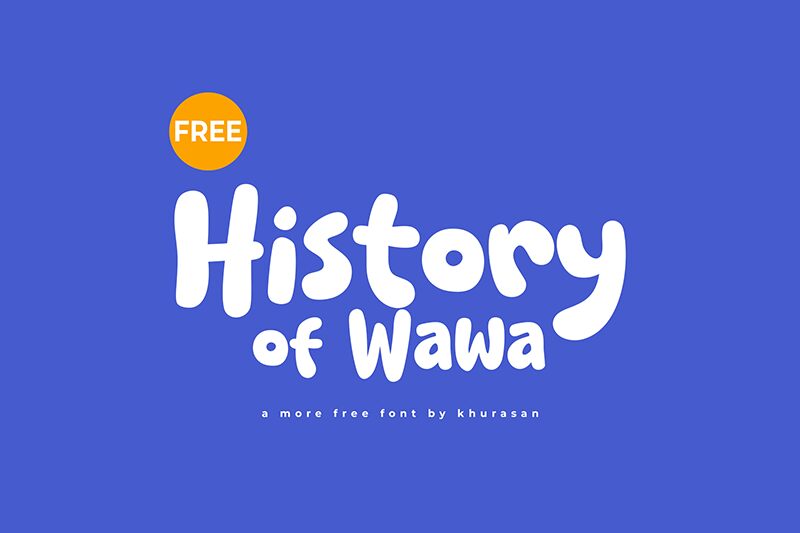
History of Wawa
History of Wawa font by Khurasan is a cartoon display typeface inspired by the animation styles from the fifties and sixties. This free font draws attention with its friendly letters and playful vibes. It easily makes characters appear casual, expressive, bold, and slightly whimsical with its thick strokes.
Go back in time using History of Wawa in creating classic branding designs, poster headlines, flyers, cartoons title sequences, screen motion intros/outros, video games screens or any digital gaming graphics.